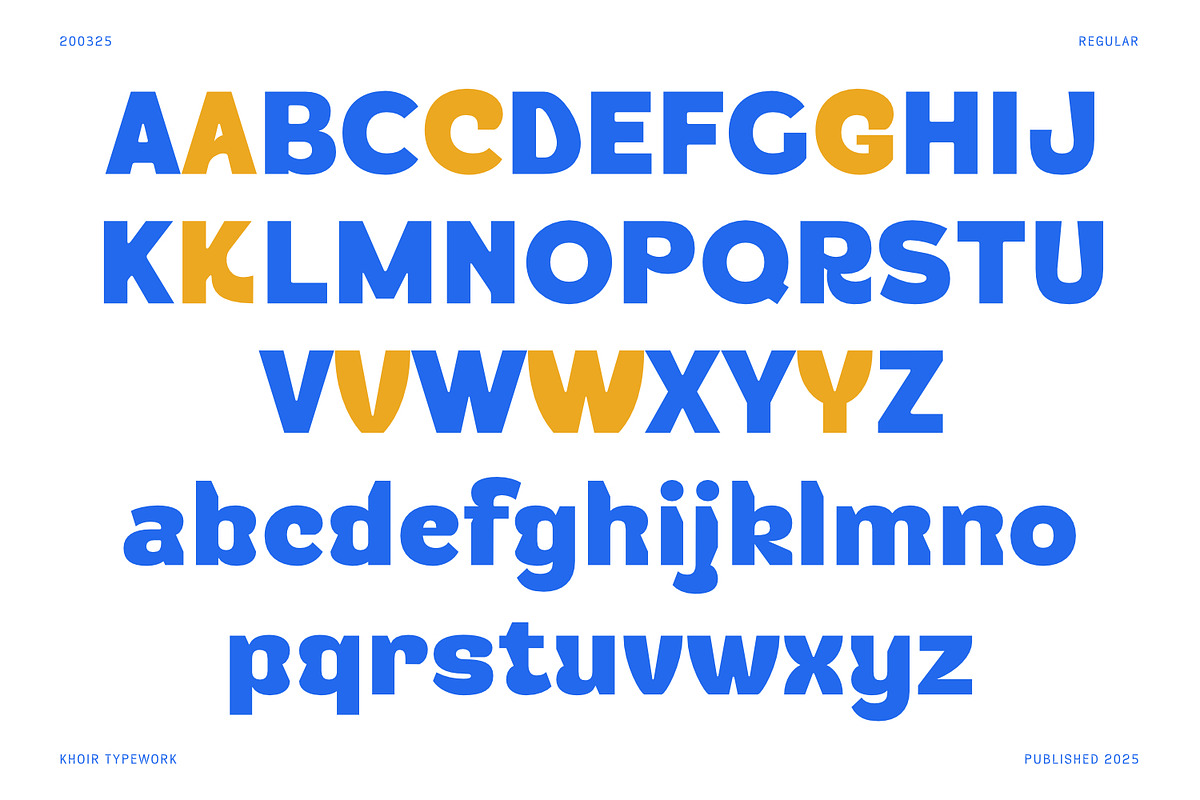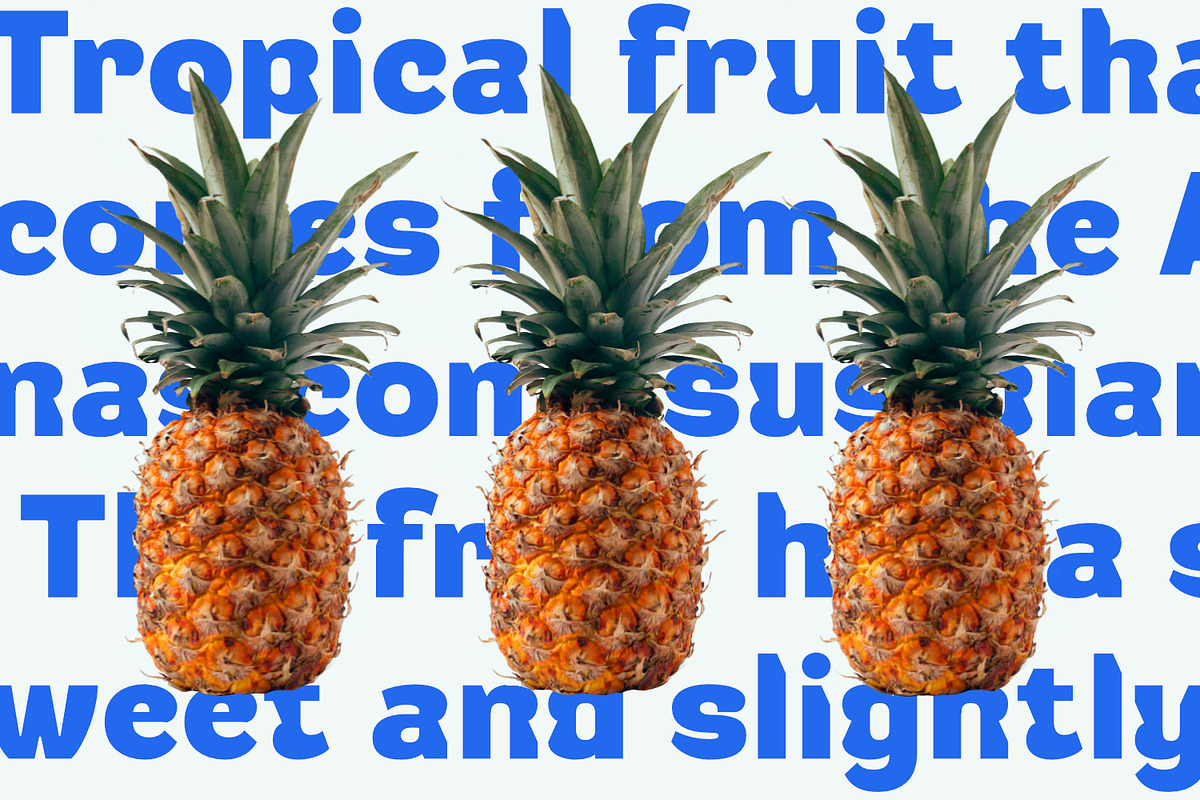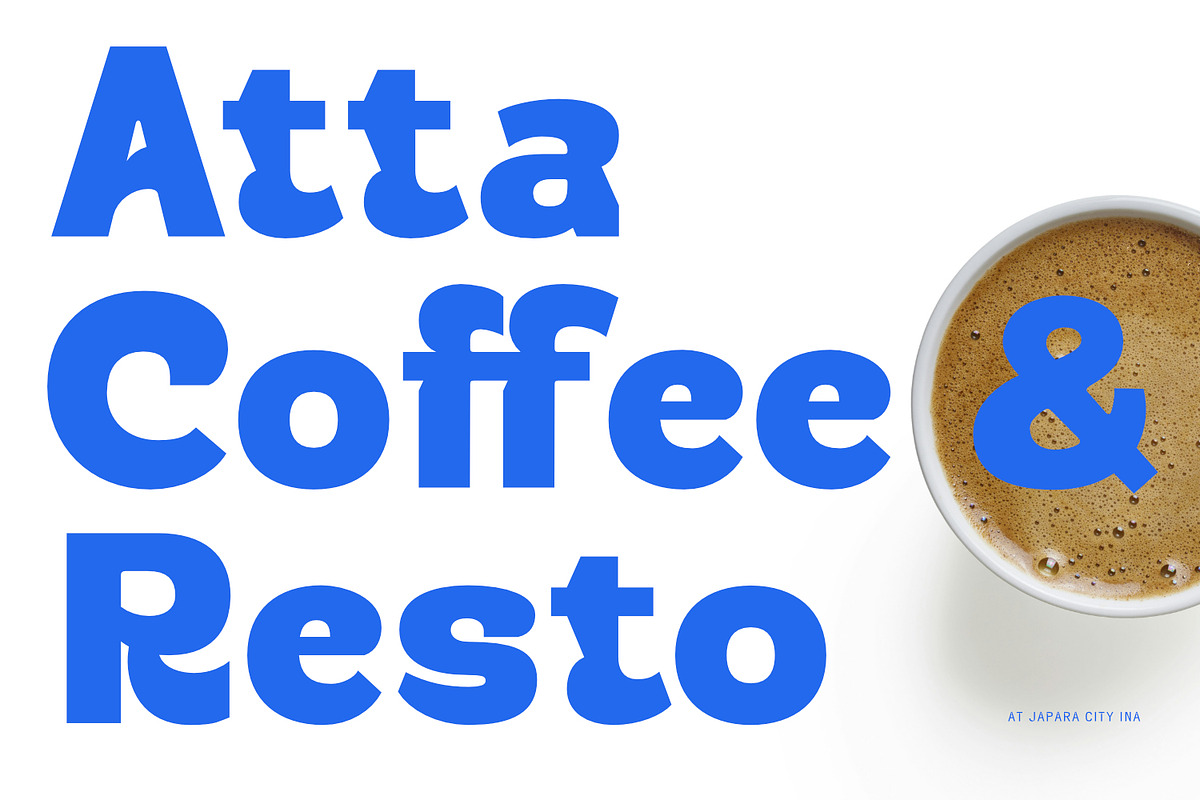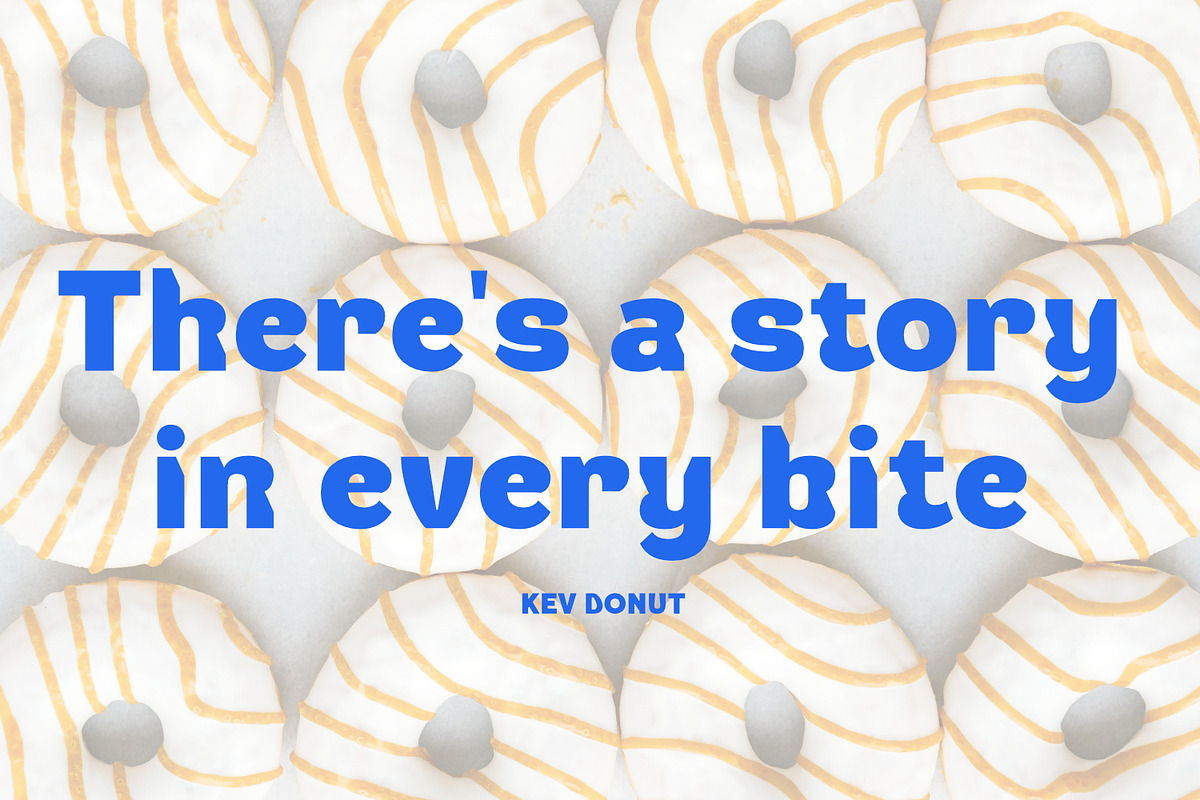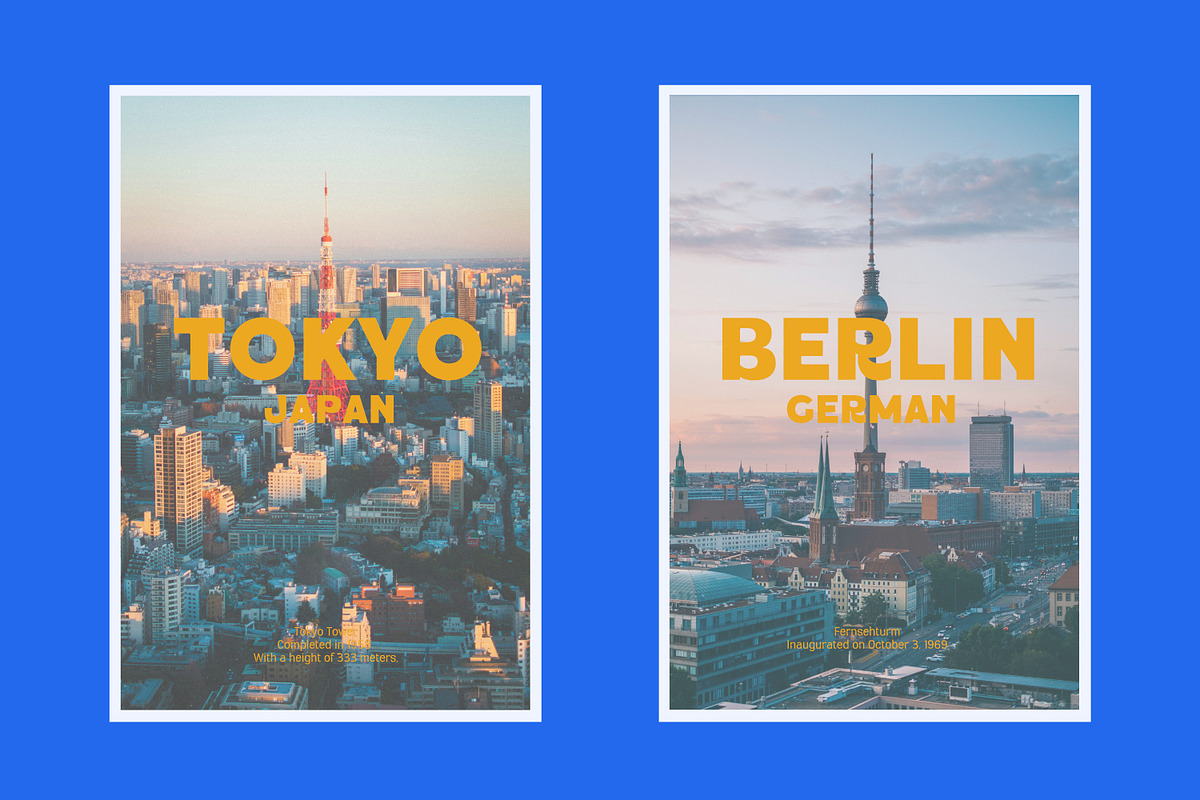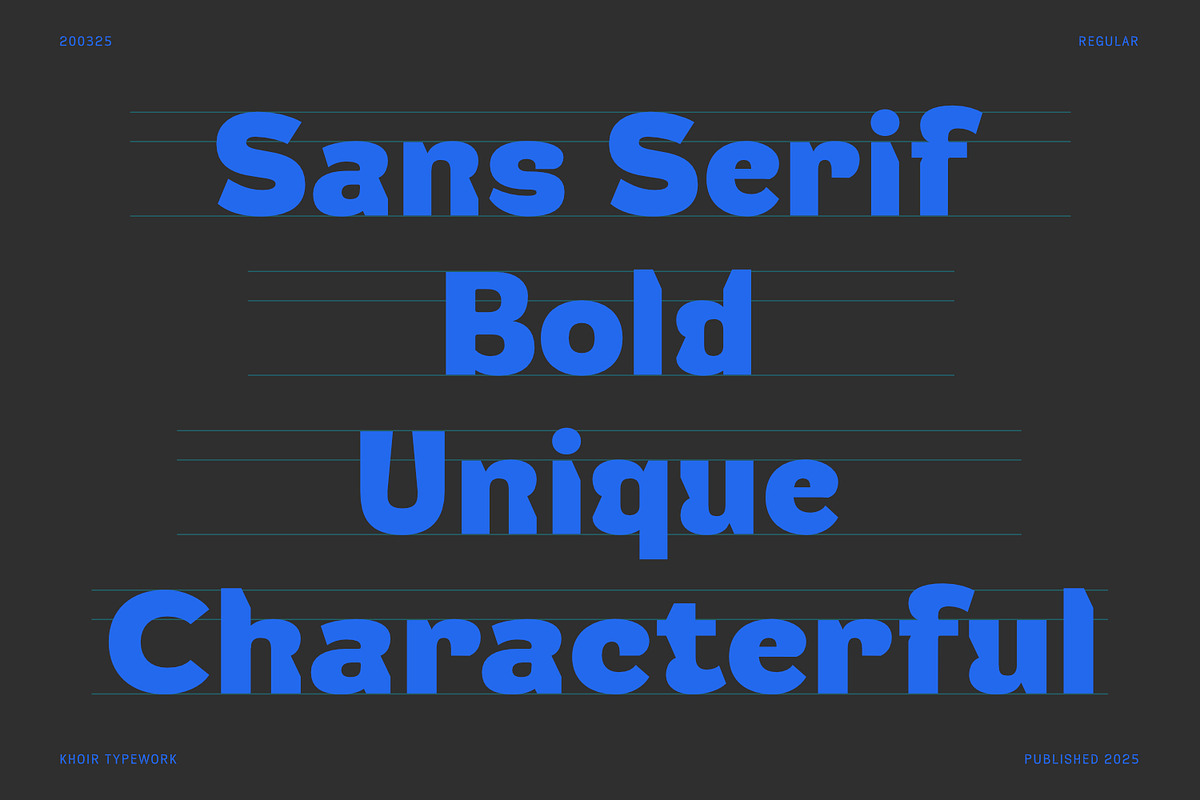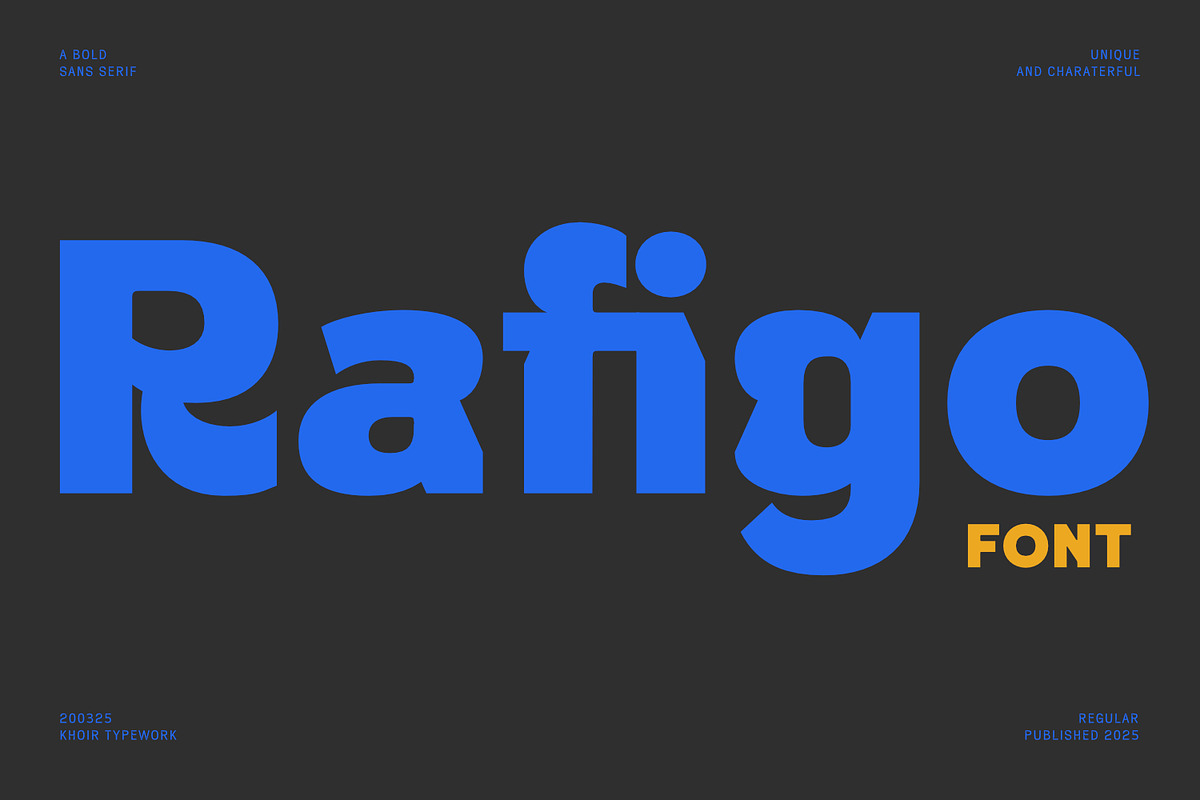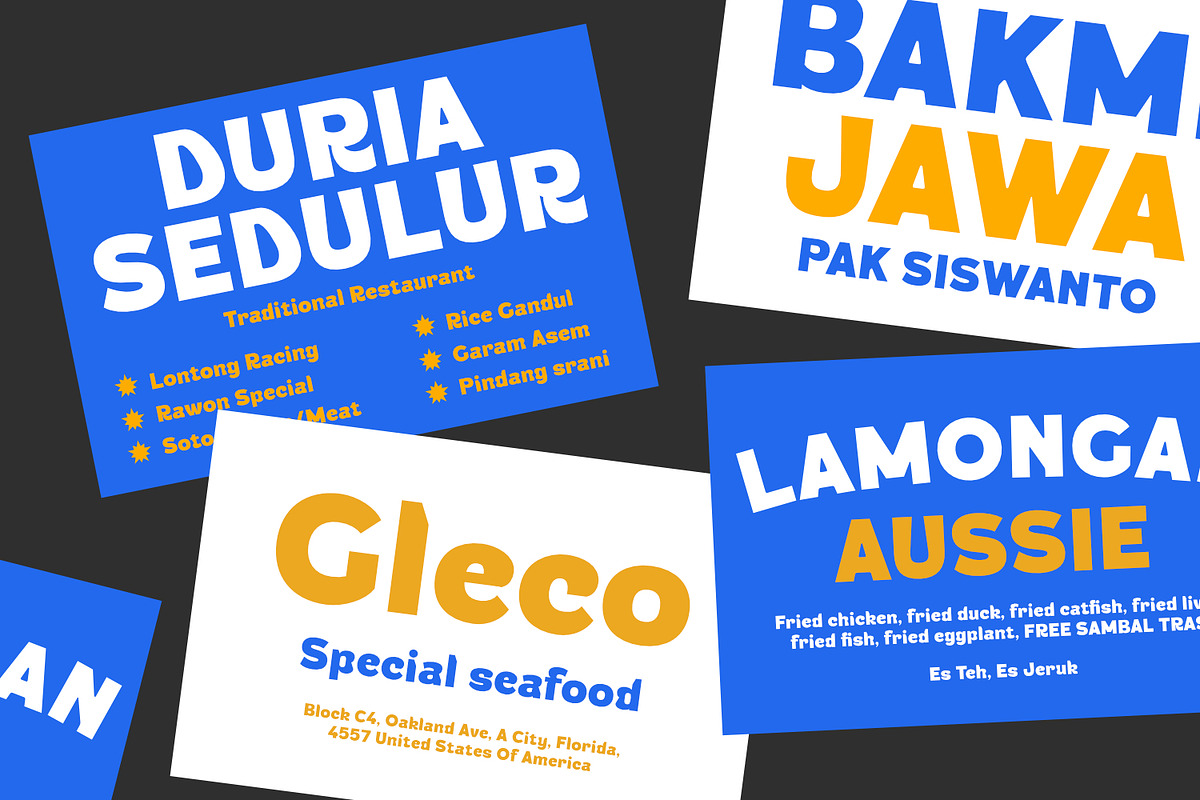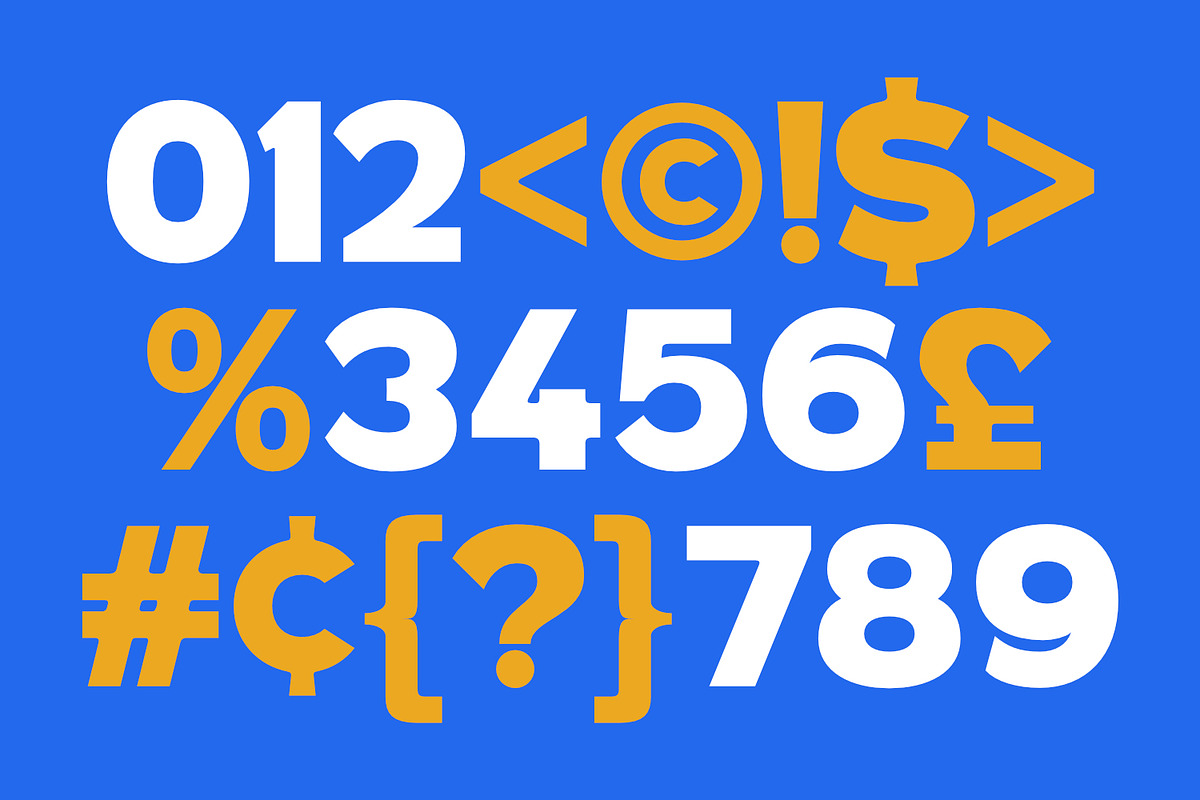
Rafigo
Has a simple shape, smooth in every curve, character in every corner makes it impressive and sticks in the memory. its name is Rafigo font.
- Uppercase/Lowercase